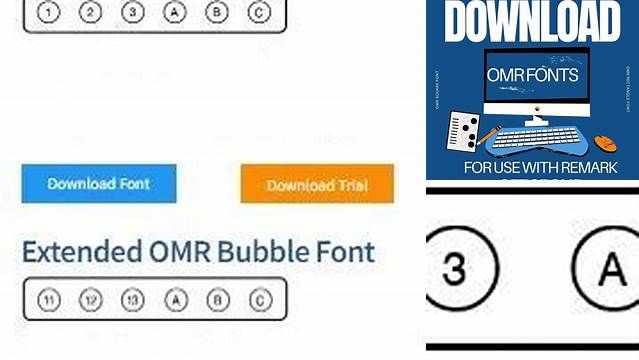
OMR Font: Free Download For MS Word 2007
Hey guys! Are you looking for an OMR font to use in MS Word 2007? You've come to the right place! This article will explore everything you need to know about OMR fonts, including where to find a free download for MS Word 2007 and how to use it effectively. We'll dive into why OMR is important, its applications, and even troubleshoot common issues. So, let's get started!
1. Understanding OMR Technology
First, let's understand what OMR actually is. OMR stands for Optical Mark Recognition. It's a technology that allows you to read data from marked fields like those bubbles you fill in on tests or surveys. The OMR reader shines a light on the paper and detects the marked positions by the amount of light reflected. Using an OMR font translates to visually representing these markings on documents you create in MS Word, making it easier to design forms intended for OMR reading. OMR technology has been around for a while, but it's still relevant in many areas like education, market research, and data collection where processing speed and accuracy are essential. To make it simple: it automates the process of gathering information from filled-in forms, saving time and reducing errors. Implementing OMR starts with designing your forms carefully, choosing the right kind of paper, and ensuring that your scanning equipment is properly calibrated. So, as you can see, OMR can be a powerful tool for handling large volumes of data quickly and efficiently.
2. What is an OMR Font?
An OMR font is a specially designed typeface that mimics the appearance of the marks used in Optical Mark Recognition (OMR) technology. This font allows you to create forms and documents in programs like MS Word that visually resemble OMR-readable sheets. Think of it as a way to design your OMR forms on your computer before printing them out for actual use. The purpose of an OMR font isn't to be read by an OMR scanner directly from the computer screen, but rather to create a visually accurate template for printing. This is really handy because it lets you see exactly how the filled-in bubbles or boxes will look. Using an OMR font can help in the design phase, ensuring that your form layout is clean and easy to understand for both the person filling it out and the eventual OMR scanner. So, whether you're creating a multiple-choice test, a survey, or any kind of data collection form, an OMR font can be a valuable tool in making your documents more professional and functional.
3. Why Use OMR Fonts in MS Word 2007?
Why specifically MS Word 2007? Well, even though it's an older version, many people still use it! Using OMR fonts in MS Word 2007 allows you to design and create OMR-compatible forms directly within a familiar environment. It’s super helpful because you can visualize how the form will look when filled out, making it easier to ensure accuracy and clarity. MS Word 2007, despite being an older version, still provides robust formatting and layout options that are perfectly suitable for designing OMR forms. Plus, using a free OMR font in MS Word can save you money on specialized form design software. It also gives you greater control over the design process, allowing you to customize the form to your exact needs. For example, you can easily adjust the size and placement of the OMR bubbles or boxes, add instructions, and incorporate your branding elements. All these benefits make using OMR fonts in MS Word 2007 a practical choice for creating efficient and visually appealing OMR forms. Who doesn't want to save money and stay organized?
6. How to Use the OMR Font in MS Word 2007
Now for the fun part – putting that OMR font to work in MS Word 2007! Open MS Word 2007 and create a new document or open an existing one. In the Home tab, locate the Font section. Click the dropdown menu to view the list of available fonts. Scroll through the list and select the OMR font you just installed. Now, any text you type will appear in the OMR font. To create the filled-in bubble effect, you might need to use specific characters or symbols provided by the font. For example, some OMR fonts use the character "O" for an empty bubble and a filled-in circle or a different character for a marked bubble. Refer to the font's documentation or character map to understand which characters correspond to the desired OMR symbols. You can insert these characters by typing them directly or by using the Insert Symbol feature in MS Word. Experiment with different characters and sizes to achieve the look you want for your OMR form. This is where the magic happens, folks! Make sure the bubbles are clear and easy to distinguish between marked and unmarked states.
7. Designing OMR Forms in MS Word 2007: Best Practices
Creating an effective OMR form is more than just slapping some bubbles on a page. Here are some best practices to keep in mind: Clarity is key. Use clear and concise language to explain the purpose of the form and how to fill it out. Make sure the instructions are easy to understand. Use a consistent layout throughout the form. Keep the design clean and uncluttered to avoid confusing the person filling it out. Use a table structure to align the OMR bubbles or boxes neatly. This makes the form easier to read and helps prevent errors during data entry. Provide enough space for each response. Don't cramp the bubbles or boxes together, as this can make it difficult to mark them accurately. Use a contrasting color for the bubbles or boxes to make them stand out against the background. Test the form with a sample group before distributing it to a wider audience. This helps you identify any potential issues or areas for improvement. By following these best practices, you can create OMR forms that are both effective and user-friendly. It’s all about making the process as smooth and intuitive as possible.
8. Troubleshooting Common OMR Font Issues
Even with the best preparation, you might run into some common issues when using OMR fonts. Here are a few and how to troubleshoot them: Font Not Showing Up: If the font doesn't appear in the font list after installation, try restarting your computer. Sometimes, a simple reboot is all it takes to refresh the font cache. Incorrect Characters: If the OMR font displays the wrong characters, make sure you are using the correct keystrokes for the desired symbols. Refer to the font's character map or documentation. Font Size Problems: If the OMR bubbles or boxes appear too small or too large, adjust the font size accordingly. Experiment with different sizes until you achieve the desired look. Compatibility Issues: If you are having trouble using the OMR font in MS Word 2007, try saving the document in a different format, such as .doc or .rtf. This can sometimes resolve compatibility issues. Corrupted Font File: If the font is causing errors or crashes, the font file may be corrupted. Try downloading the font again from a different source. If these troubleshooting tips don't solve the problem, consider seeking help from online forums or communities related to OMR technology or graphic design. There's usually someone who's encountered a similar issue and can offer advice.
9. Alternatives to OMR Fonts for Form Design
While OMR fonts are great for visual representation, there are other ways to design forms. Form Design Software: Consider dedicated form design software like Adobe InDesign or Microsoft Forms. These tools offer advanced features and templates specifically designed for creating professional-looking forms. Online Form Builders: Online form builders like Google Forms, SurveyMonkey, and Typeform are great for creating digital forms that can be easily distributed and collected online. These platforms often include built-in analytics and reporting features. Using Tables and Shapes in MS Word: You can also create OMR-like forms using tables and shapes in MS Word. Insert a table and adjust the cell sizes to create the grid layout. Then, use the Insert Shapes tool to add circles or squares to represent the OMR bubbles or boxes. PDF Form Fields: Another option is to create interactive PDF forms using Adobe Acrobat. This allows you to add fillable fields, checkboxes, and radio buttons to your forms, making them easy to complete electronically. Each of these alternatives offers its own set of advantages and disadvantages, so choose the one that best fits your needs and budget.